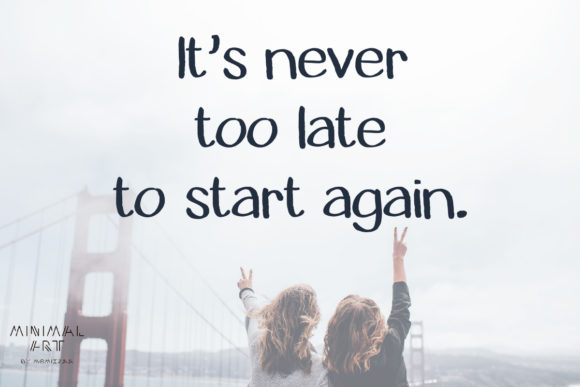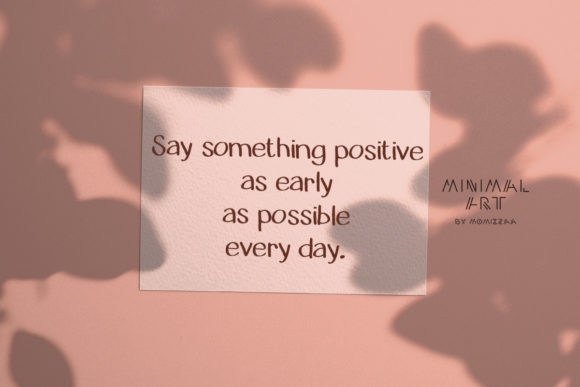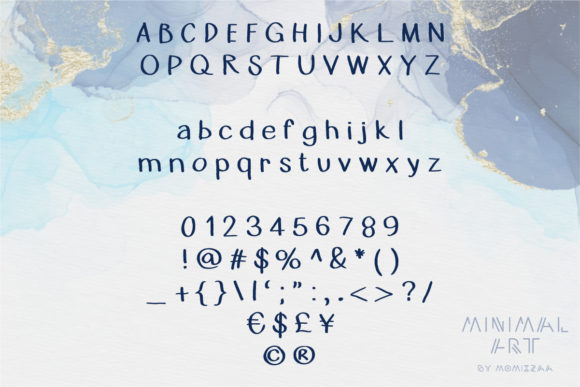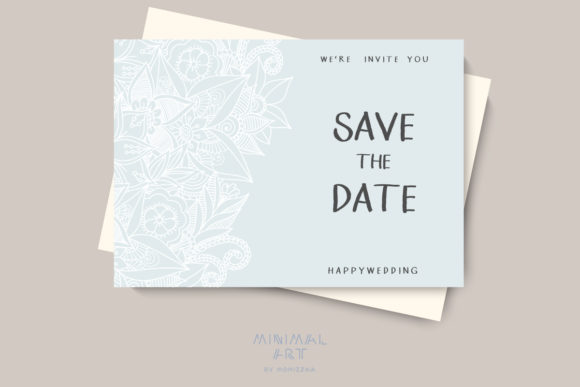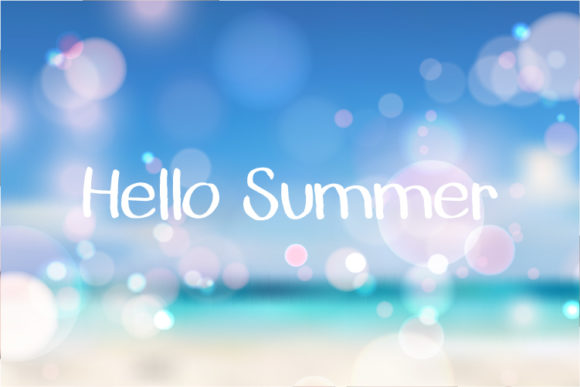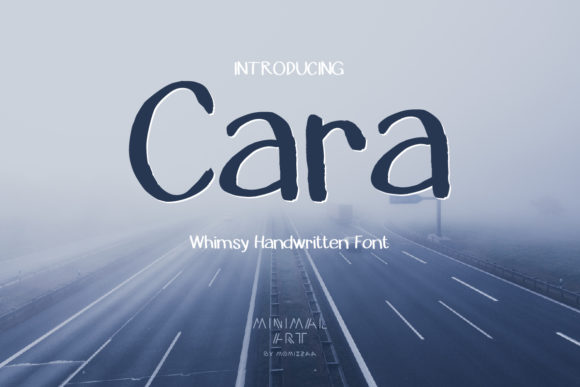
Cara Font: The Ultimate Choice for Creative Projects
Are you a designer, crafter, or DIY enthusiast looking for a font that can add a personal touch to your creative projects? Look no further than Cara Font! This adorable handwritten font is perfect for anyone who wants to add a dash of whimsy and charm to their designs. In this article, we’ll explore the features and benefits of Cara Font, and why it’s an excellent choice for a wide range of creative projects.
What is Cara Font?
Cara Font is a beautiful, simple handwritten font that exudes a casual charm. Its down-to-earth feel makes it incredibly versatile and suitable for various design applications. Whether you’re creating a blog post, social media graphic, or a craft project, Cara Font is sure to turn your creative idea into a true piece of art!
Key Features of Cara Font
- Cute and Simple Design: Cara Font boasts a clean and straightforward design that makes it easy to read and understand.
- Handwritten Style: The font’s handwritten style gives it a personal and friendly feel, perfect for adding a touch of warmth to your designs.
- Casual Charm: Cara Font’s casual charm makes it perfect for creative projects that require a laid-back and approachable vibe.
- Highly Versatile: This font is incredibly versatile and can be used for a wide range of design applications, from digital projects to print materials.
Benefits of Using Cara Font
So, why choose Cara Font for your creative projects? Here are just a few benefits of using this amazing font:
- Easy to Read: Cara Font is incredibly readable, making it perfect for body text, headings, and titles.
- Unique and Creative: This font’s unique handwritten style will add a touch of personality to your designs and help them stand out from the crowd.
- Time-Saving: With Cara Font, you can create stunning designs in no time. Its simplicity and elegance make it easy to pair with other fonts and design elements.
- Perfect for Crafters and Designers: Whether you’re a professional designer or a DIY crafter, Cara Font is an excellent choice for adding a personal touch to your projects.
How to Use Cara Font in Your Creative Projects
Using Cara Font in your creative projects is easy! Here are a few ideas to get you started:
- Digital Projects: Use Cara Font in your blog posts, social media graphics, and email newsletters to add a personal touch.
- Print Materials: This font is perfect for print materials like brochures, flyers, and business cards.
- Craft Projects: Add a touch of whimsy to your craft projects, such as handmade cards, scrapbooking, and journaling.
- Branding and Identity: Use Cara Font to create a unique and memorable brand identity for your business or personal project.
In conclusion, Cara Font is an excellent choice for designers, crafters, and DIY enthusiasts looking for a cute and simple handwritten font. Its casual charm, readability, and versatility make it perfect for a wide range of creative projects. With Cara Font, you can add a personal touch to your designs and turn your creative ideas into true pieces of art!